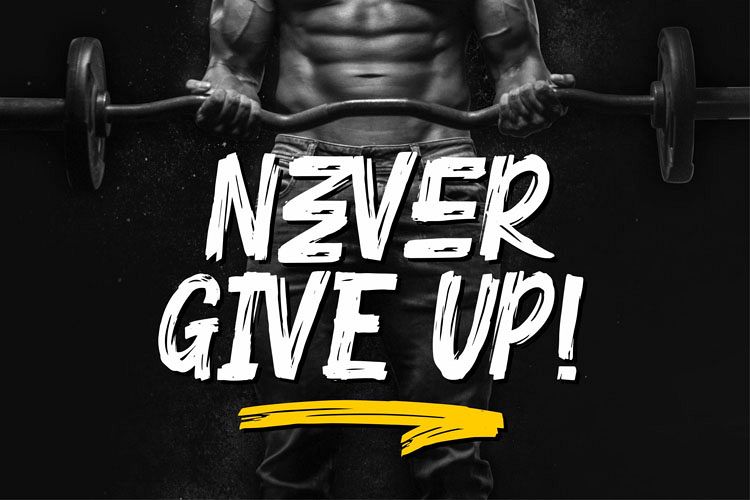
Crushed Stone
Crushed Stone Swash
Crushed Stone
Crushed Stone is a supercharged, street-wise brush font bursting with energy. With extra attention to quick strokes and sharp details, Stronger is ideal for logos, apparel, quotes, product packaging, or anything which needs a typographic turbo-boost.What's Included: